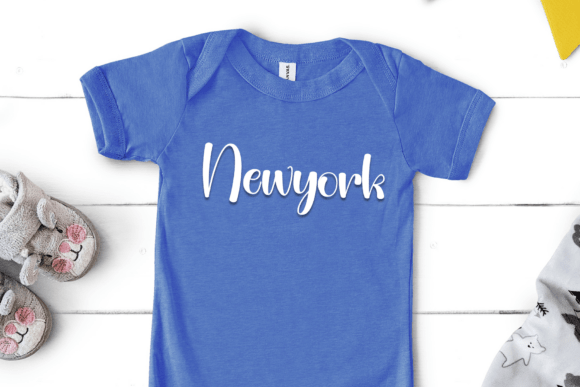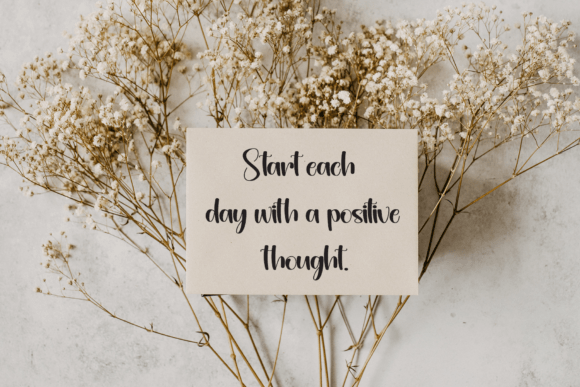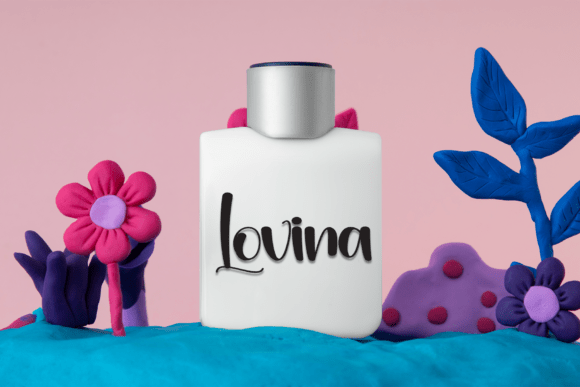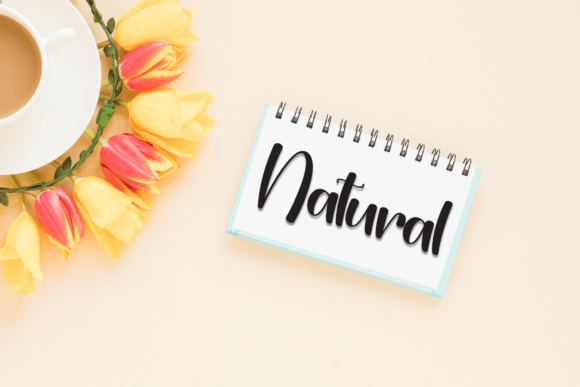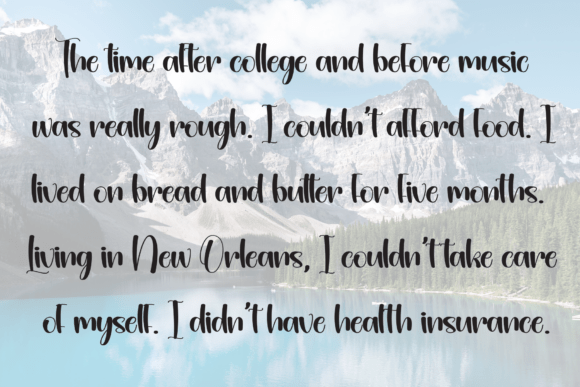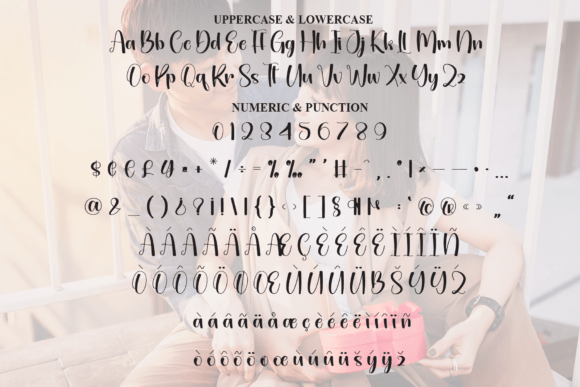
Introduction to Perfect Girlfriend Font
Perfect Girlfriend is a stylish handwritten script font that captures elegance and playfulness in every stroke.
With flowing curves and a natural rhythm, it adds a personal, charming touch to invitations, branding, and social media Its graceful design brings warmth, sophistication, and creativity to any project.